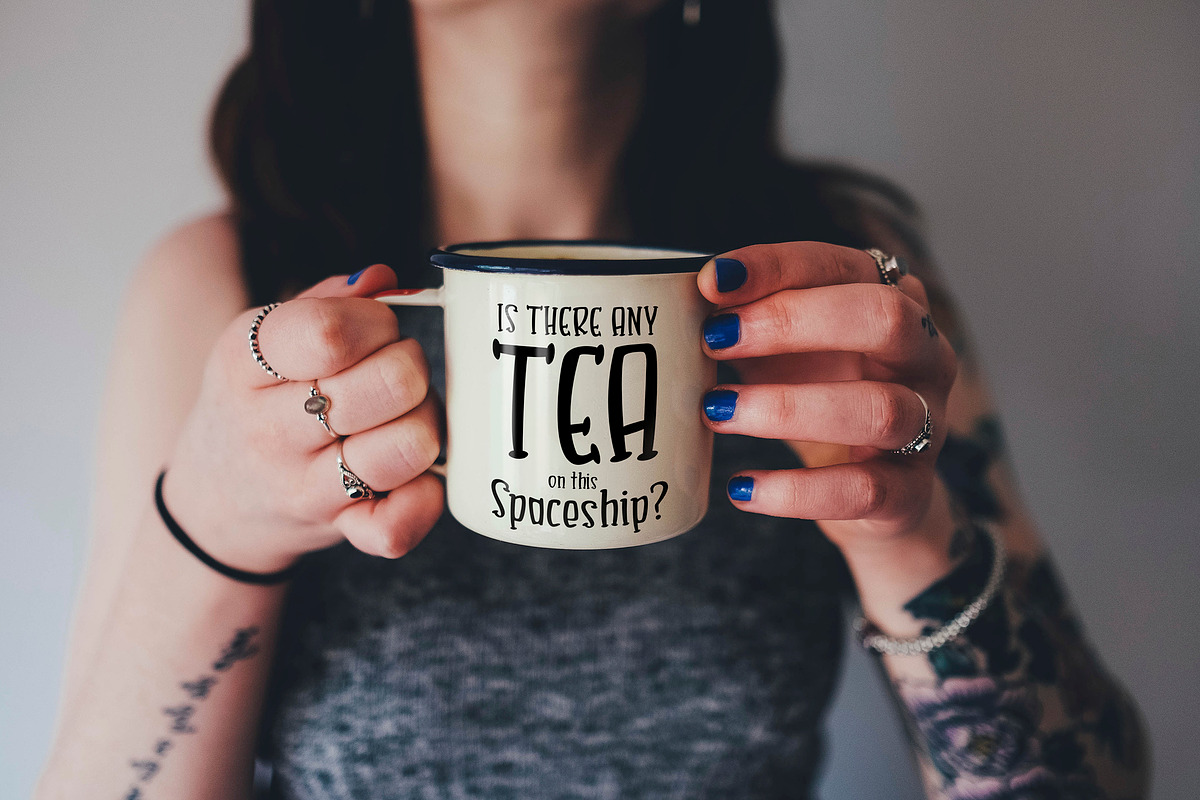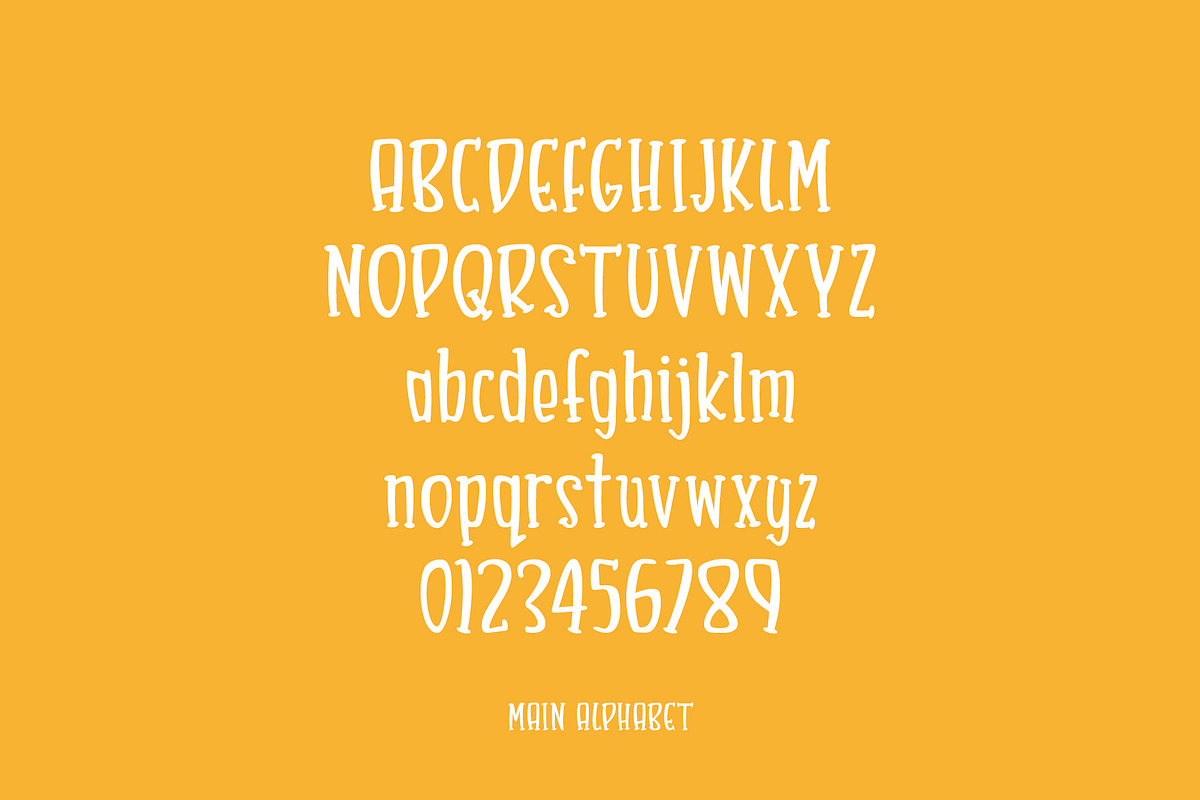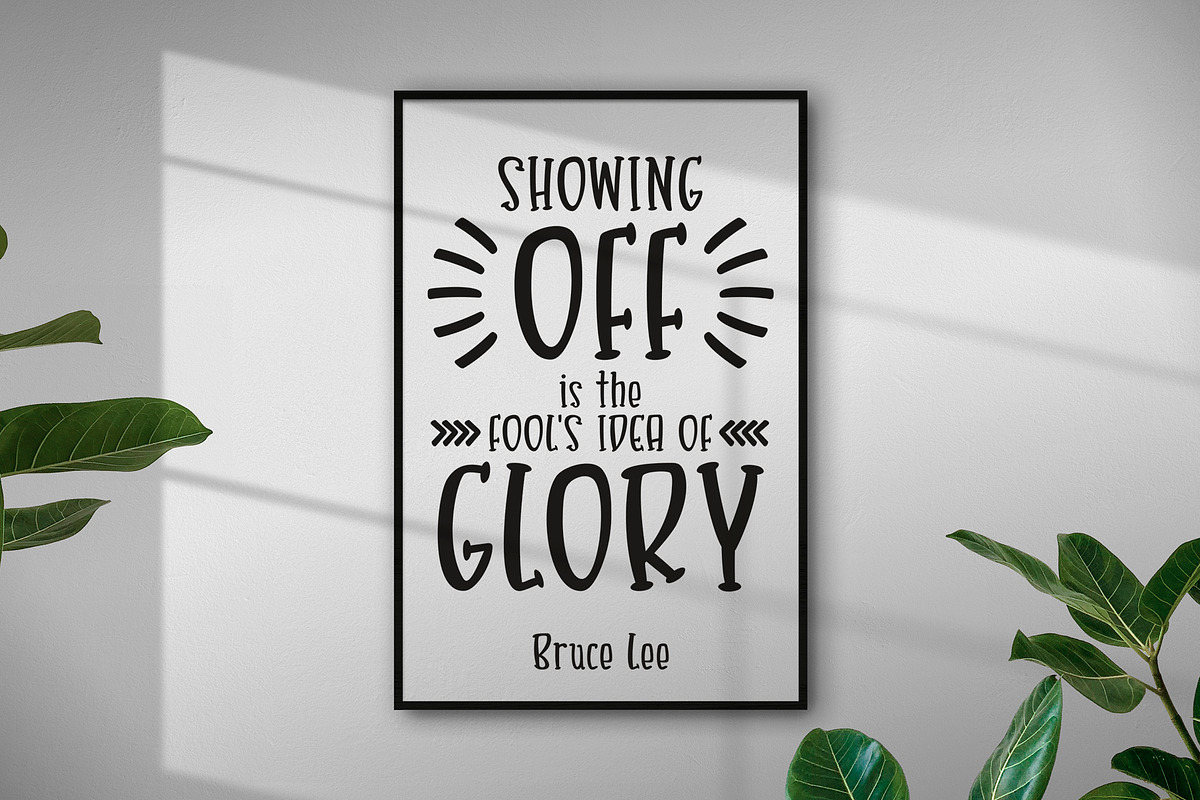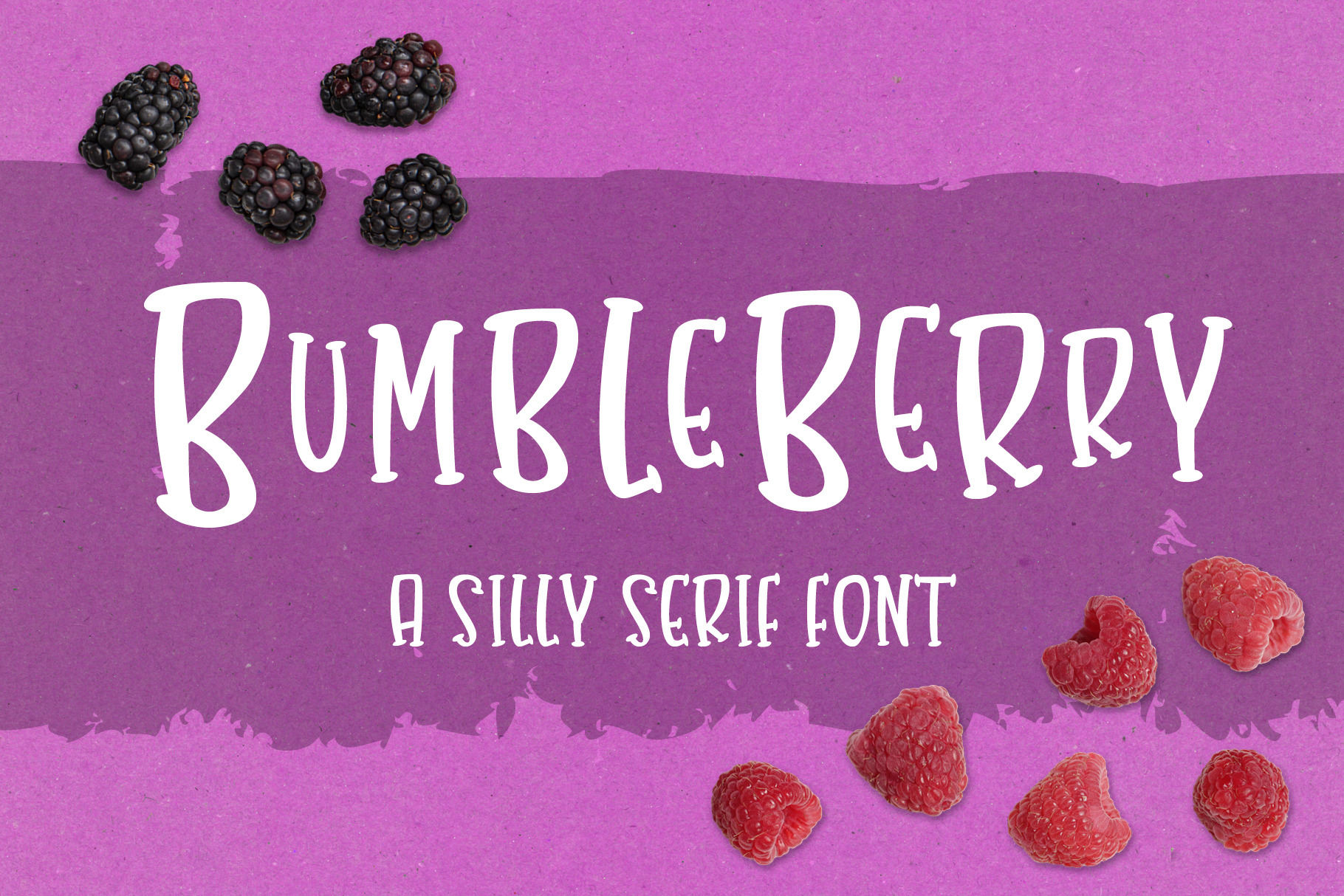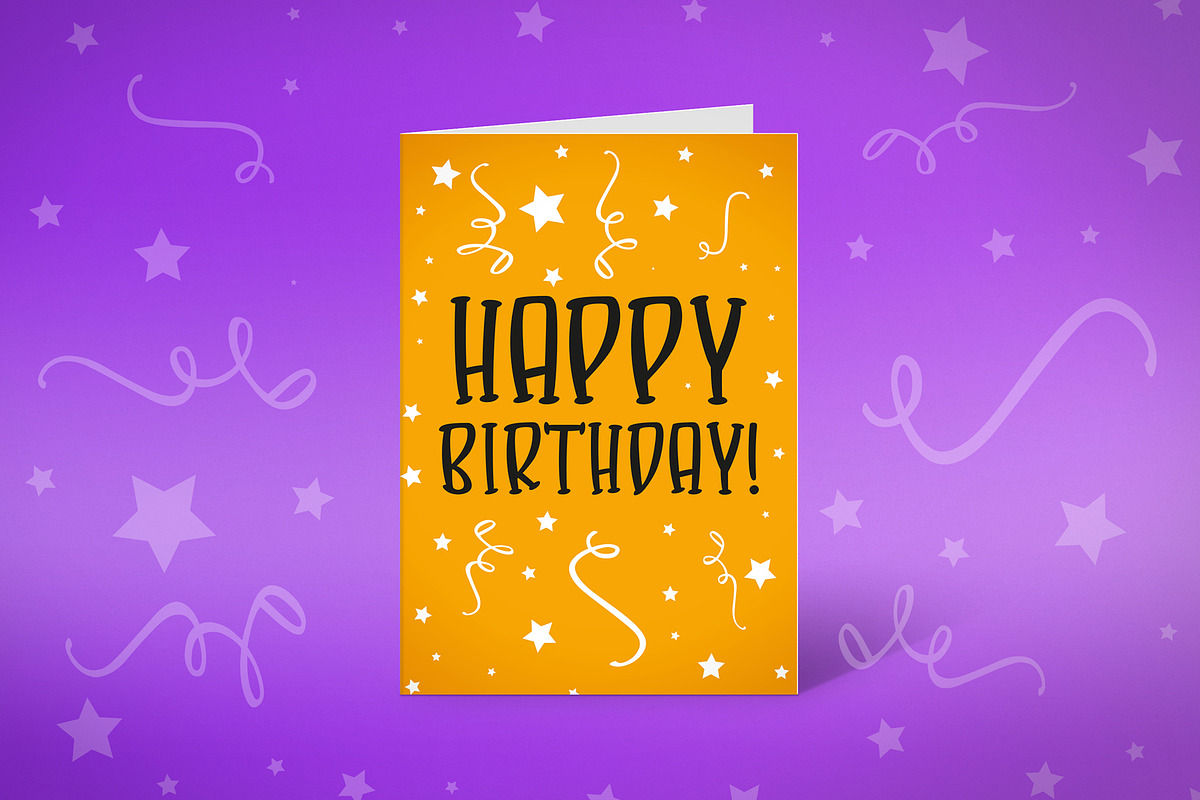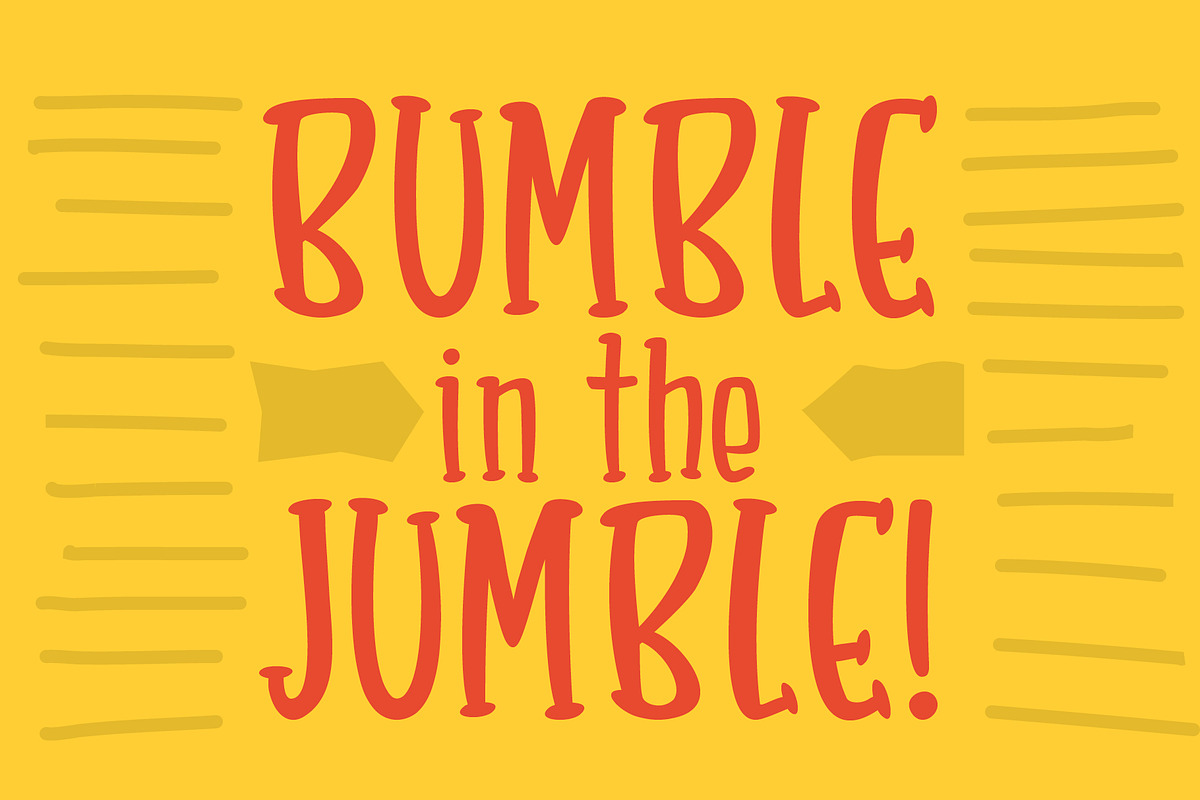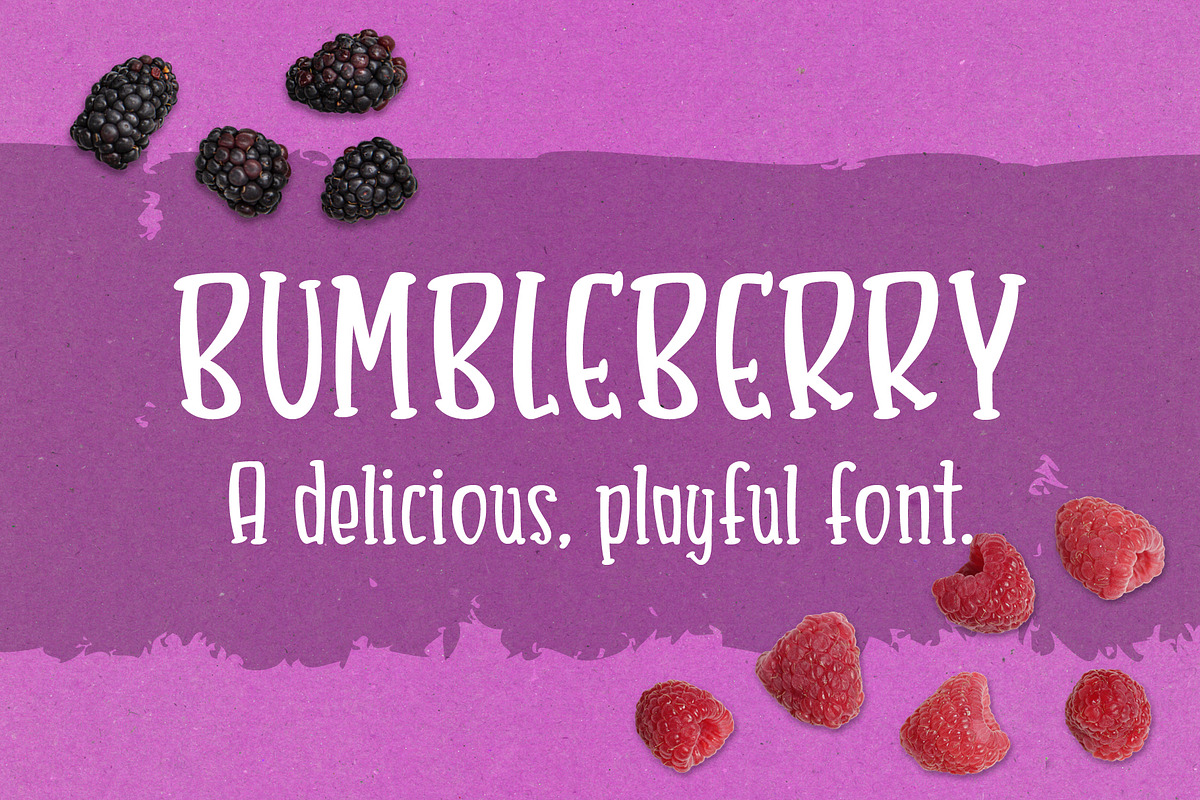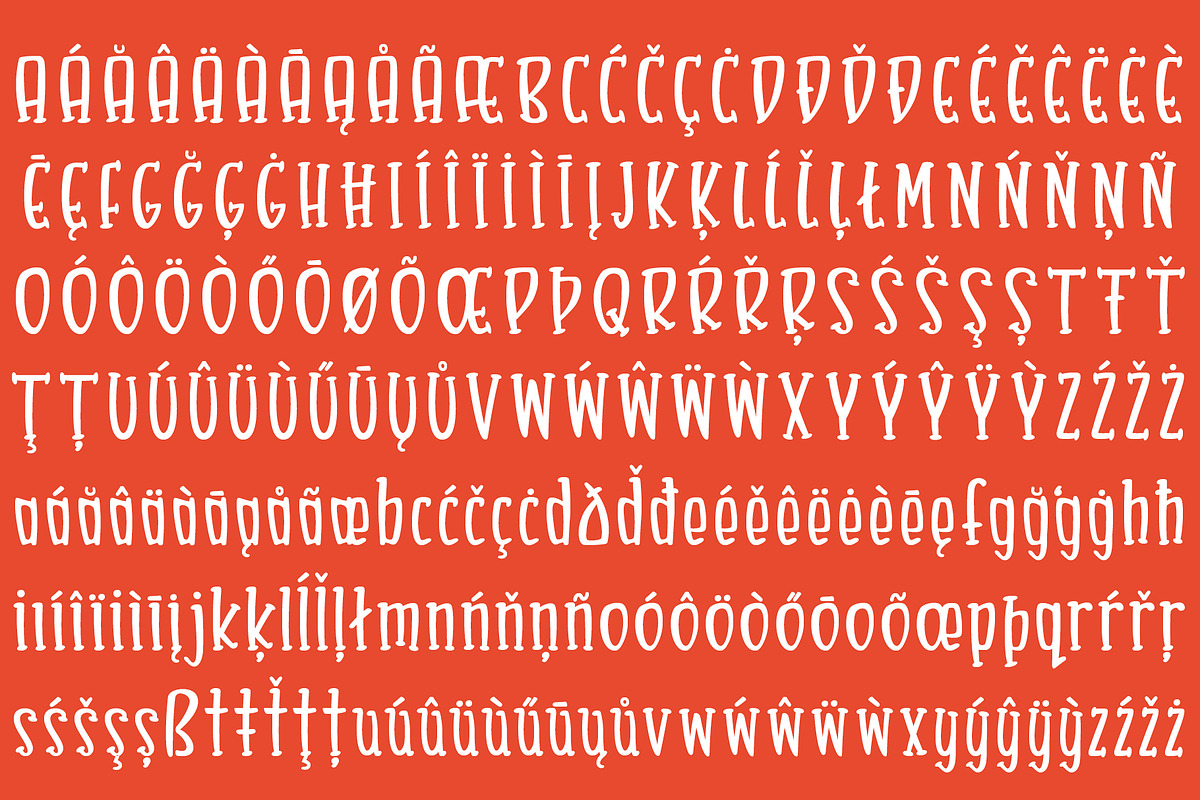
Bumbleberry - a silly serif font
Bumbleberry is a silly serif font.
A quirky, fruity and fun font. Delicious and playful! Full of character and unique. Perfect for everything from branding to crafting. This versatile font is great for merchandise, products, quotes, editorial, posters or whatever design you have in mind. This is a great font for crafters.
This is a handwritten font. A craft font. A logo font. A modern font. And above all, a fun font. A simple font to make whatever you design look fantastic!
This is the cousin to our popular Bombleberry font which is a sans serif. They share some common characters which do not include any serif detail.
Complete with uppercase, lowercase and special characters. Over 300 glyphs including full European support including western, central and south eastern European glyphs.